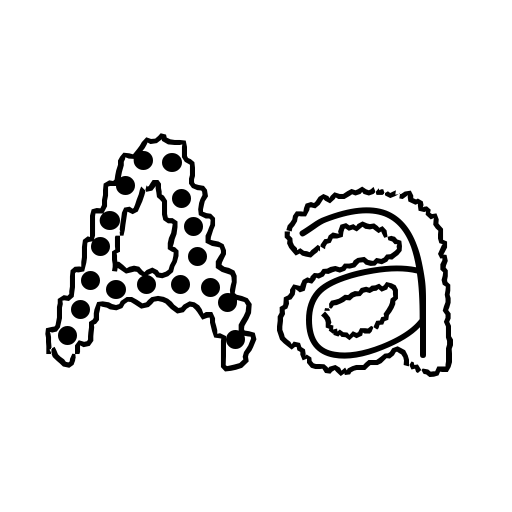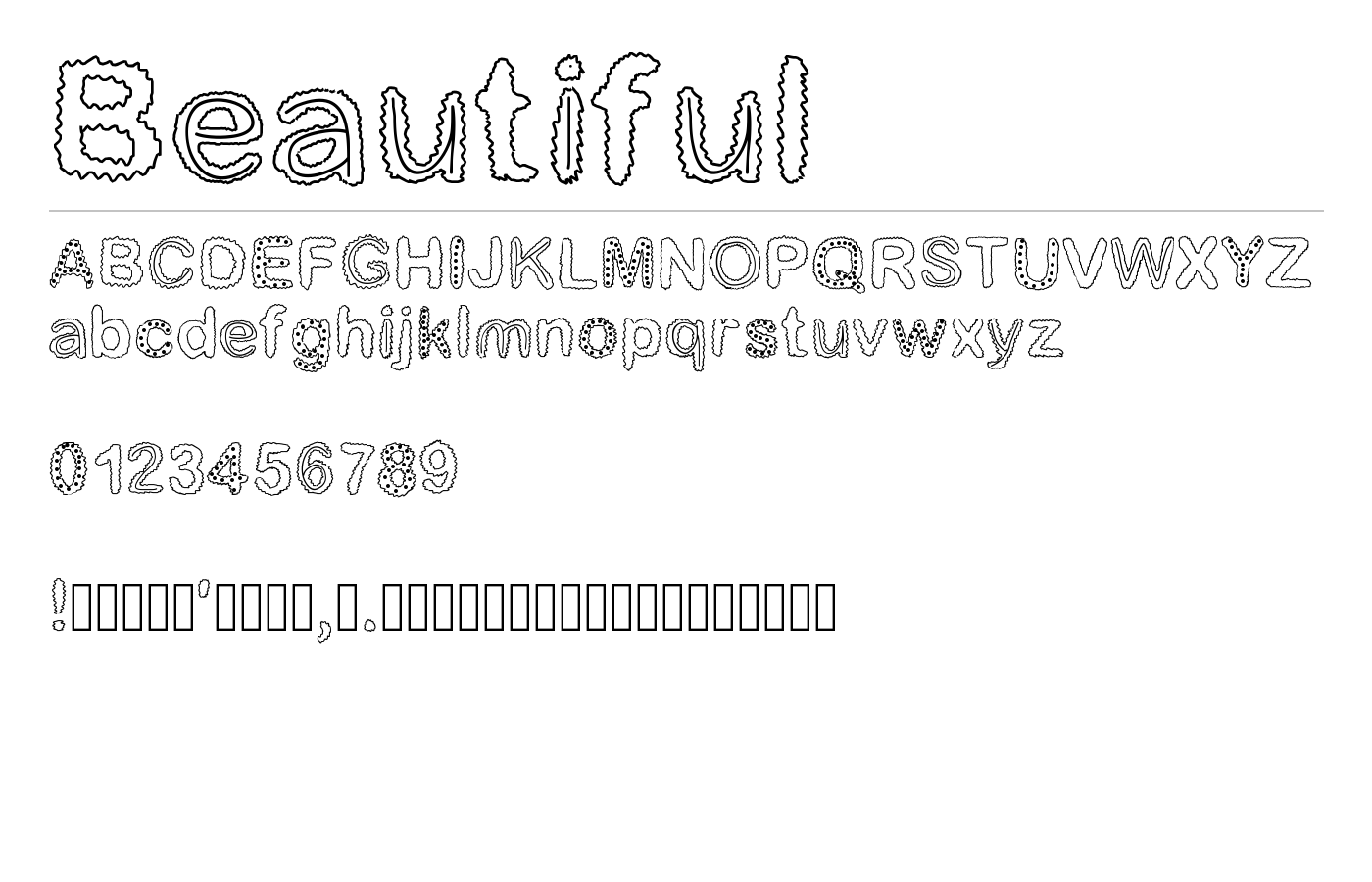
Beautiful Font is a playful and quirky sans serif typeface with a unique wavy, hand-drawn outline that gives it a whimsical and casual character. Its irregular stroke edges and light weight make it ideal for fun, creative projects such as children's books, informal invitations, and eye-catching posters where a lively and friendly vibe is desired. This font stands out for its charming individuality, bringing a joyful and approachable feel to any design.
Beautiful Font
About Beautiful Font